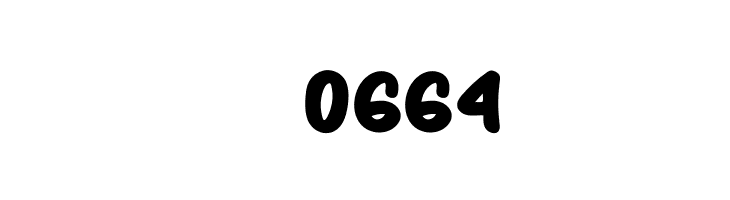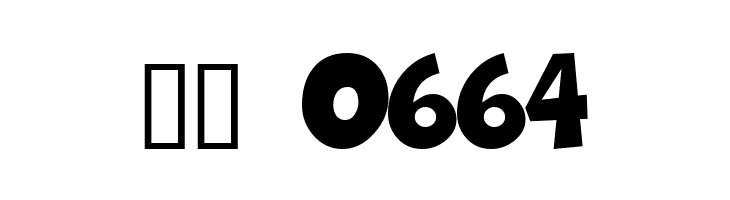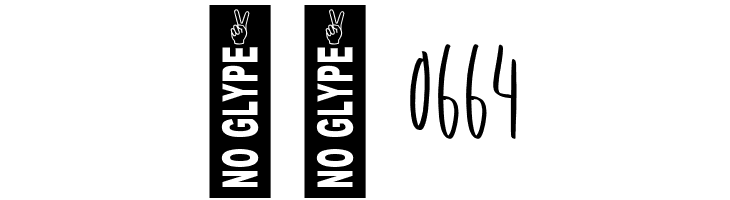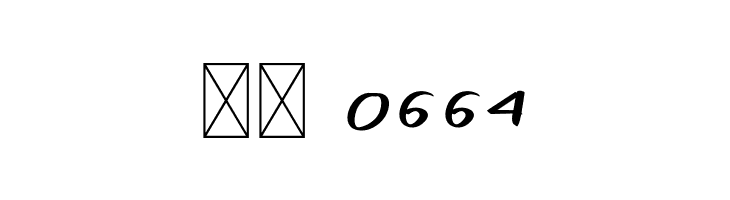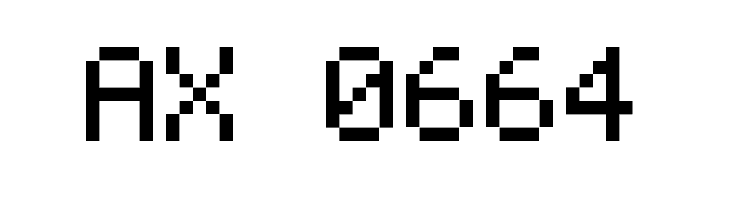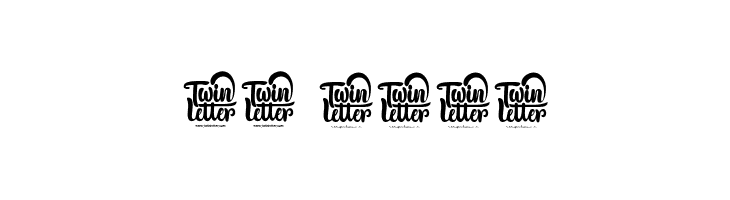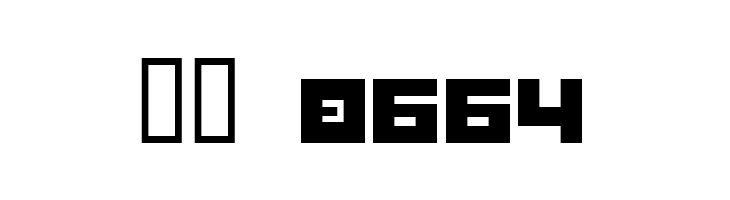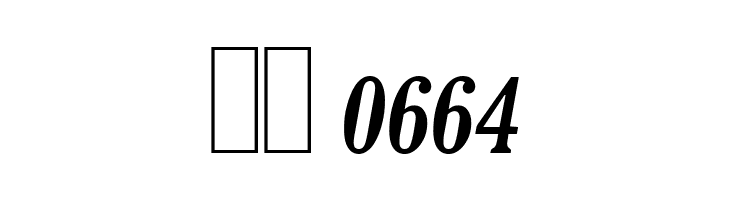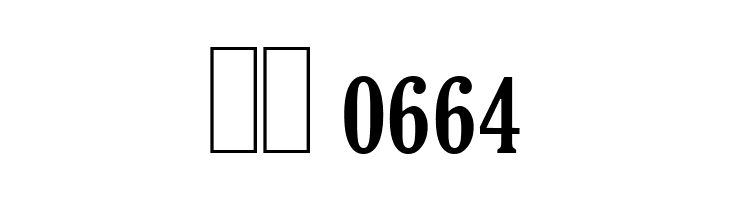
A bold, expressive script font with a hand-drawn, lively appearance.
A bold, playful font with thick, rounded strokes and a lively appearance.
A decorative and artistic font with bold, fluid strokes and intricate details.
A bold, playful font with rounded edges and a bubbly appearance.
A bold, brush-style handwritten font with dynamic, playful strokes.
A bold, flowing script font with a modern, playful aesthetic.
A dynamic, cursive script font with flowing, slanted letters and varied stroke thickness.
A flowing, cursive font with elegant loops and swashes.
A bold, textured font with a hand-drawn, artistic style.
A set of stylized media and technology format logos.
A pixelated, monospaced font with a retro digital aesthetic.
A bold, futuristic font with geometric shapes and clean lines.
A playful and dynamic handwritten font with fluid strokes.
A decorative script font with floral embellishments and a whimsical style.
A bold, brush-style font with high contrast and dynamic strokes.
A bold, hand-drawn font with an edgy, dynamic style.